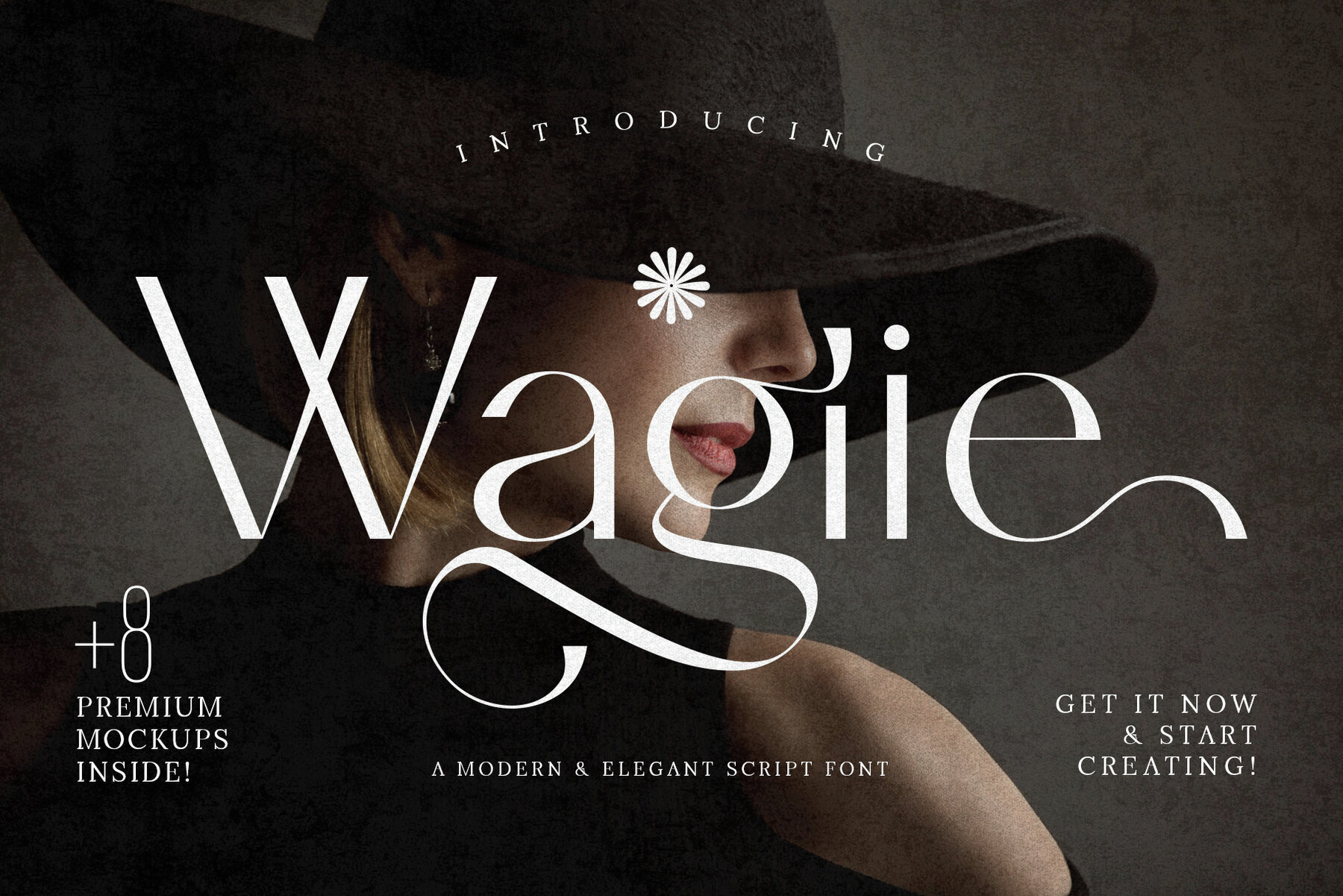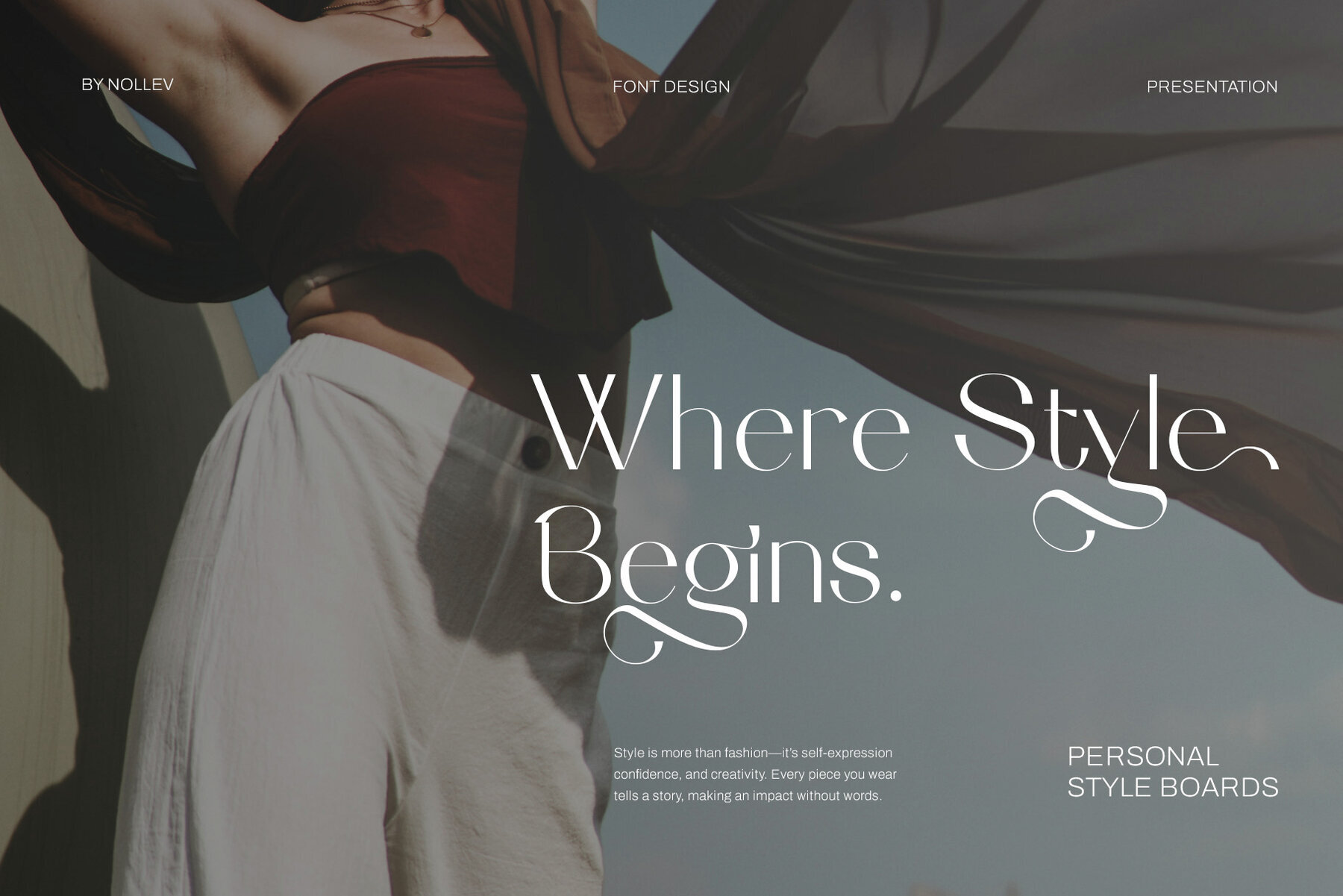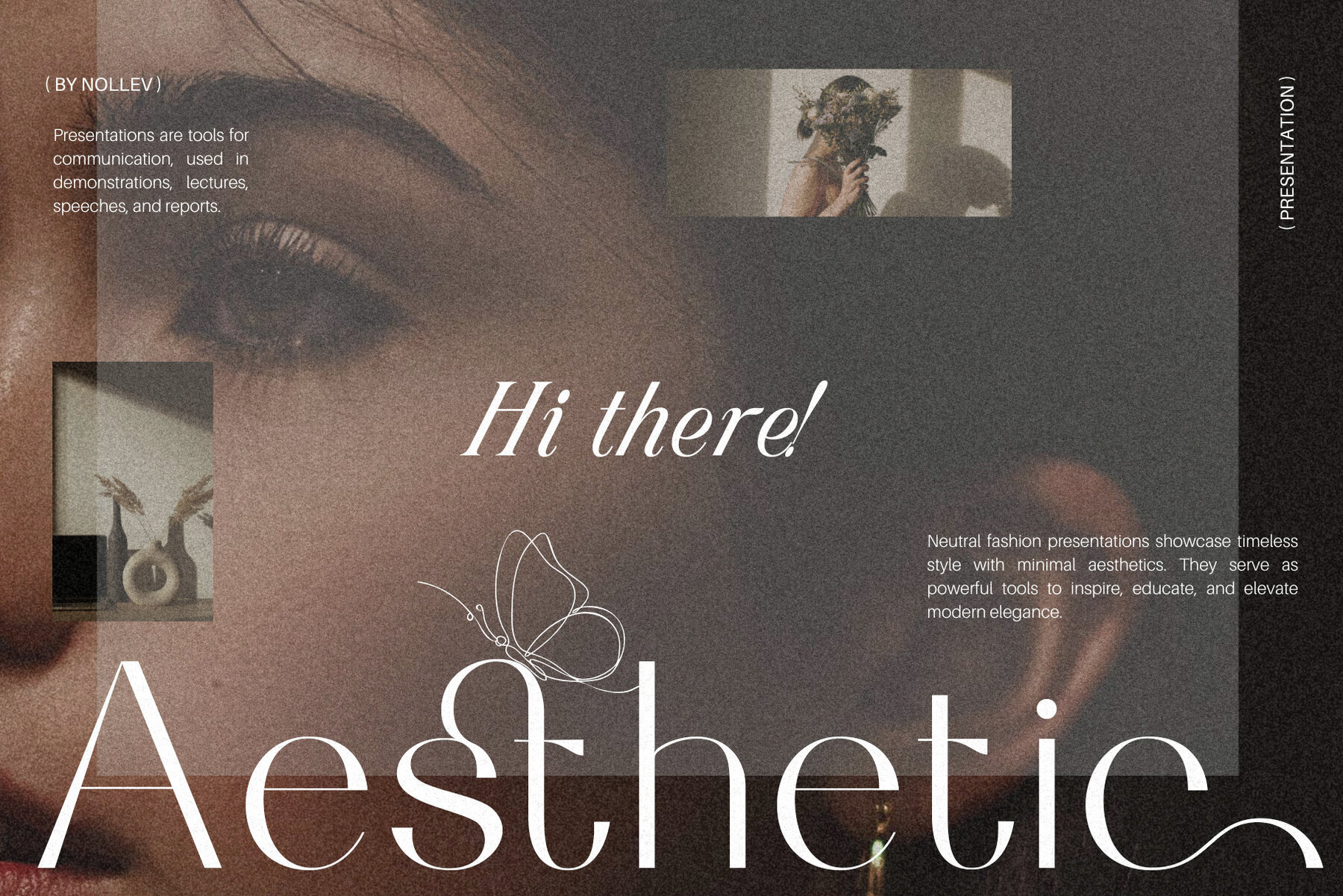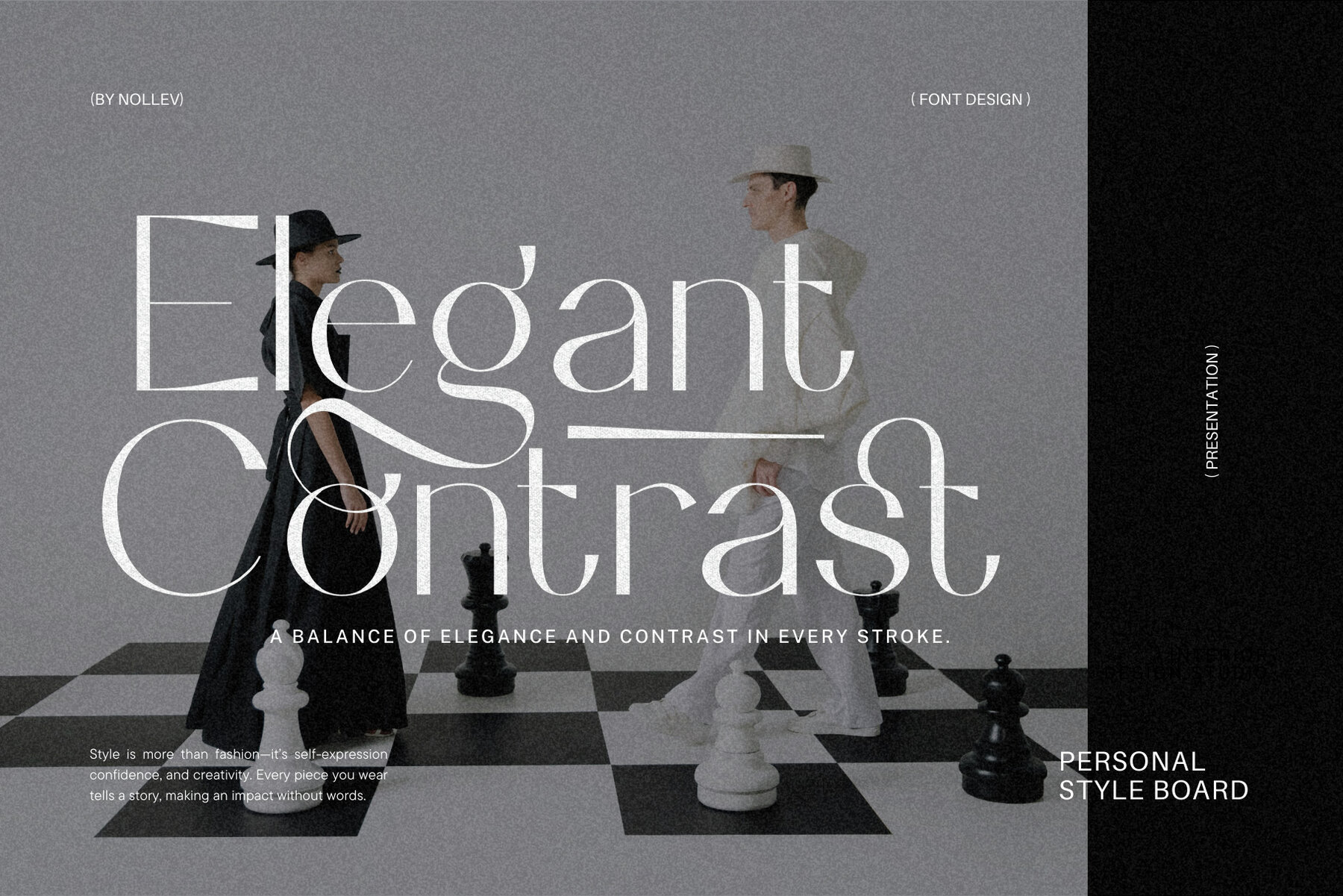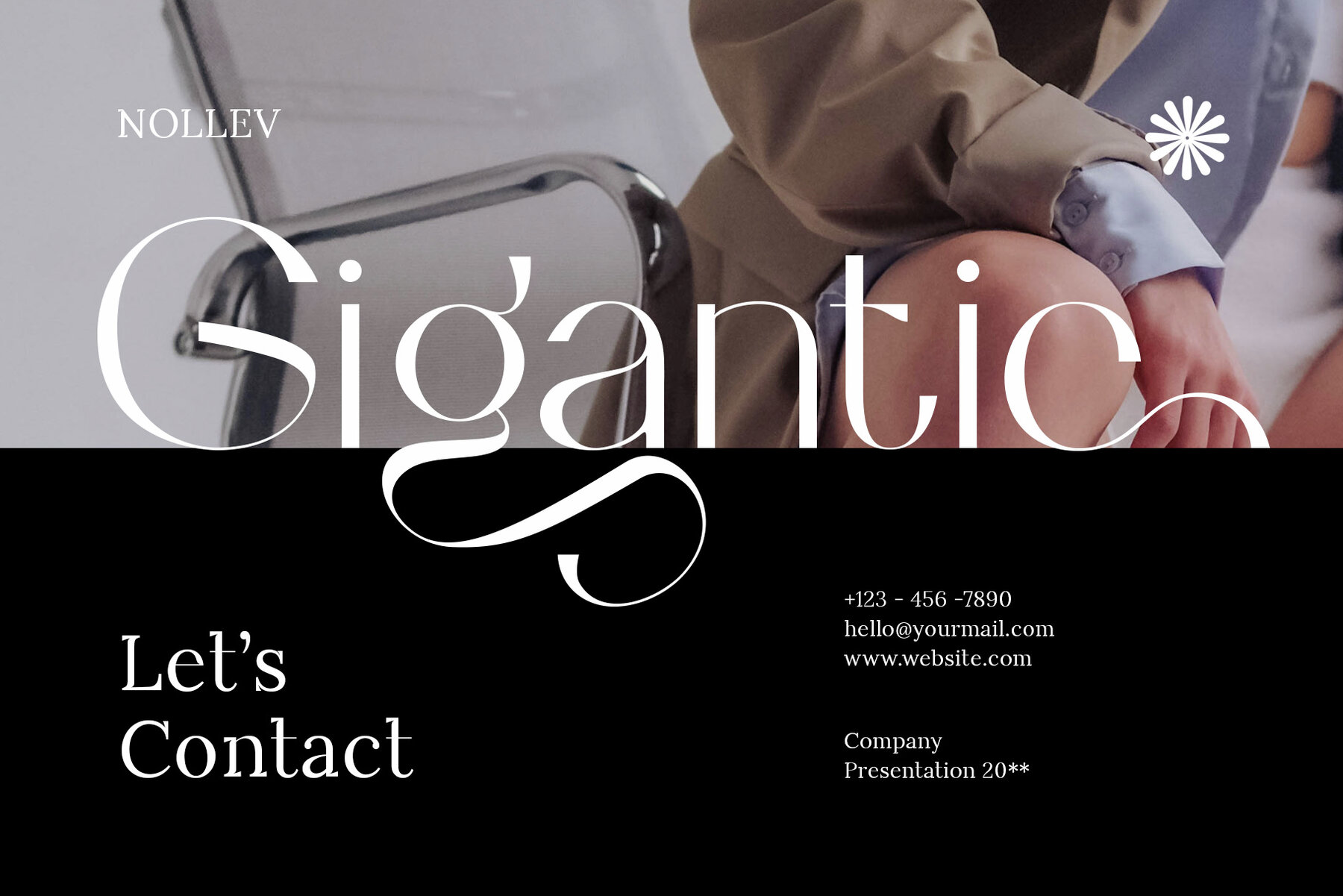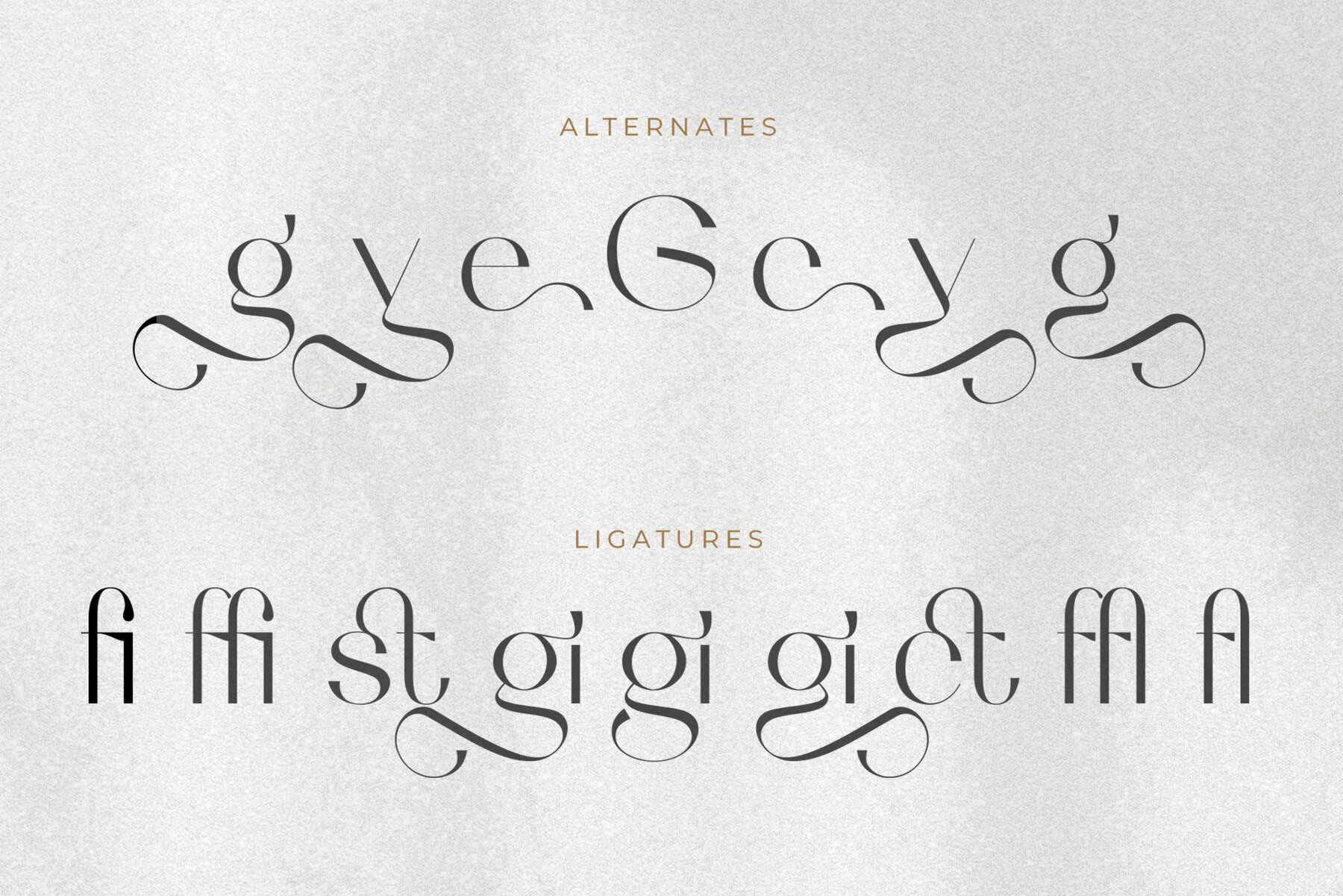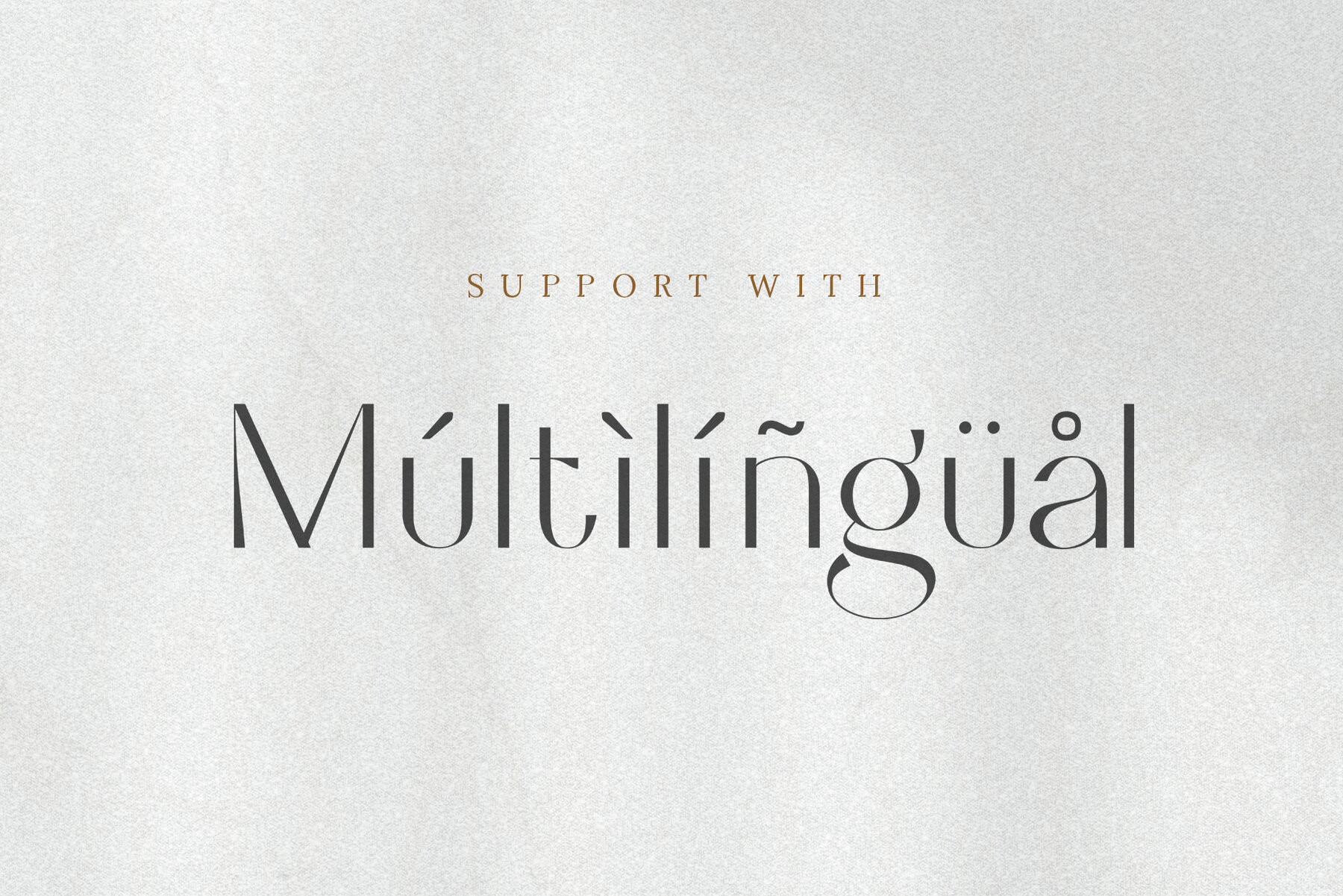
Wagiie Font
Wagiie Modern Serif
Infuse sophistication into your branding with Wagiie, a modern serif font. Ideal for logos, brand identity, and editorial design, it offers an elegant solution for high-end typography projects.Wagiie: Modern Serif with Elegance
Wagiie seamlessly integrates into your creative endeavors, providing a touch of class and precision to any project.